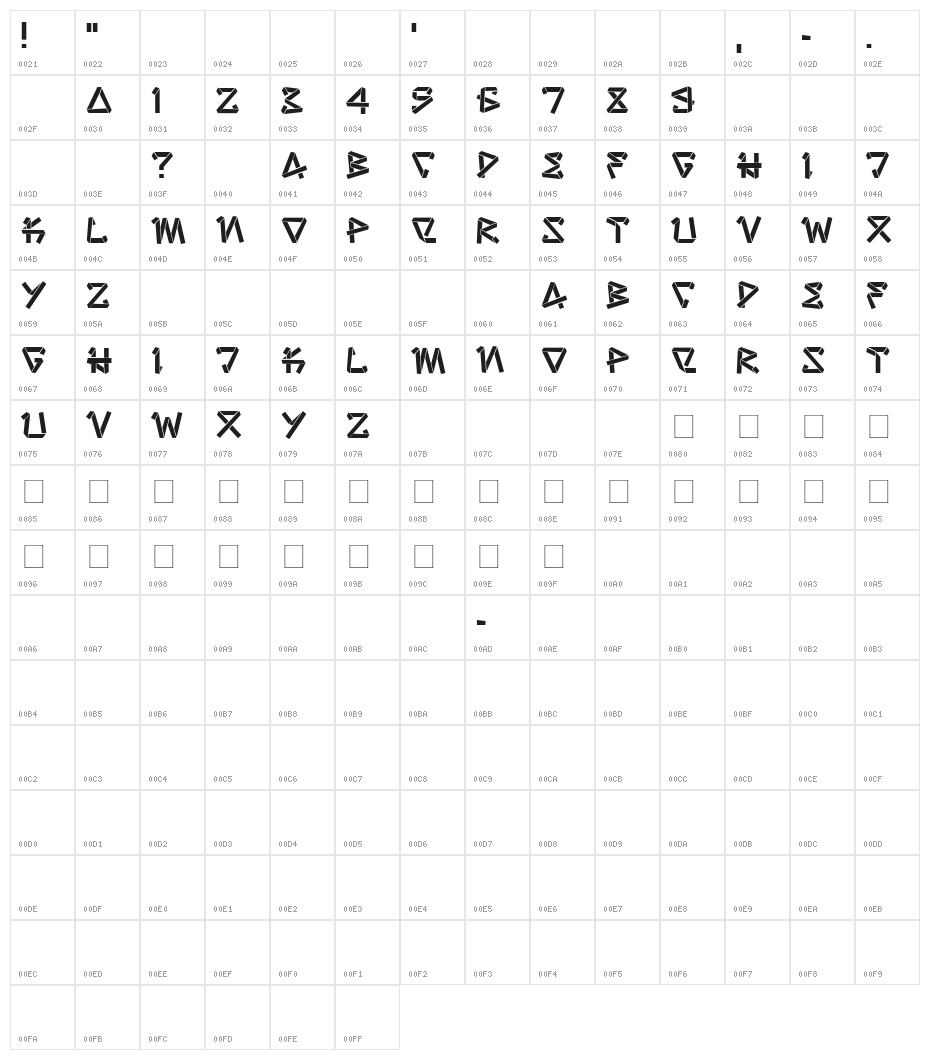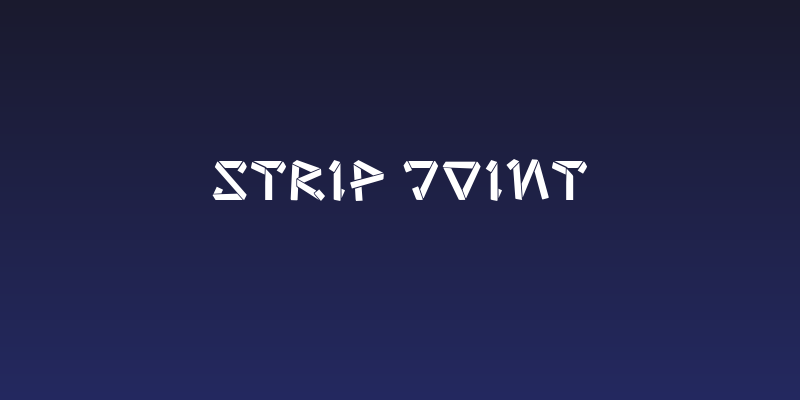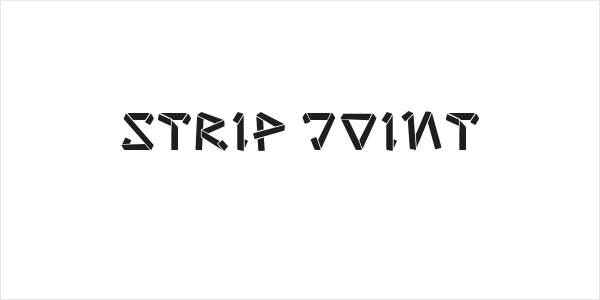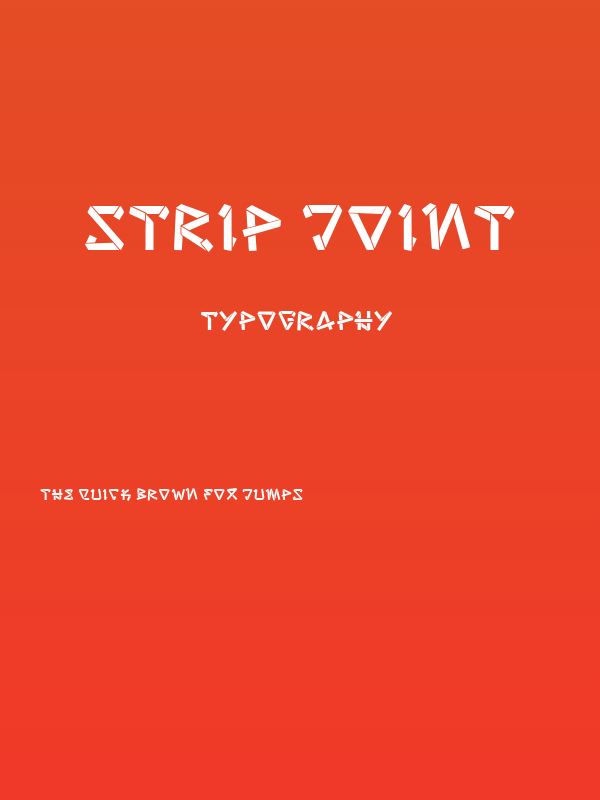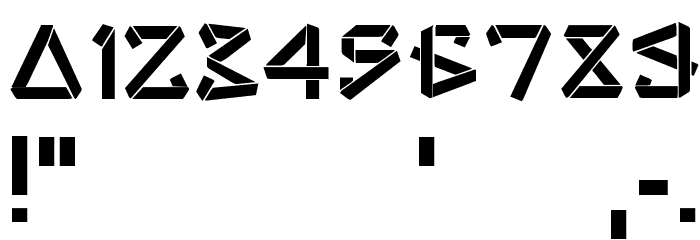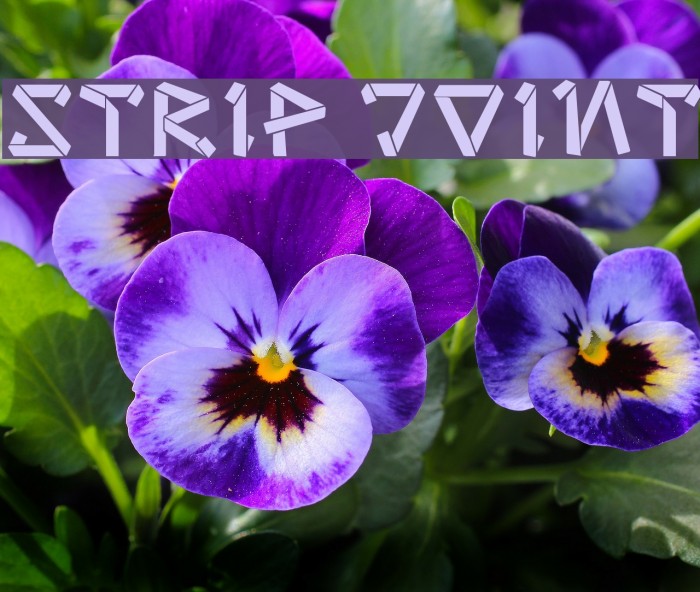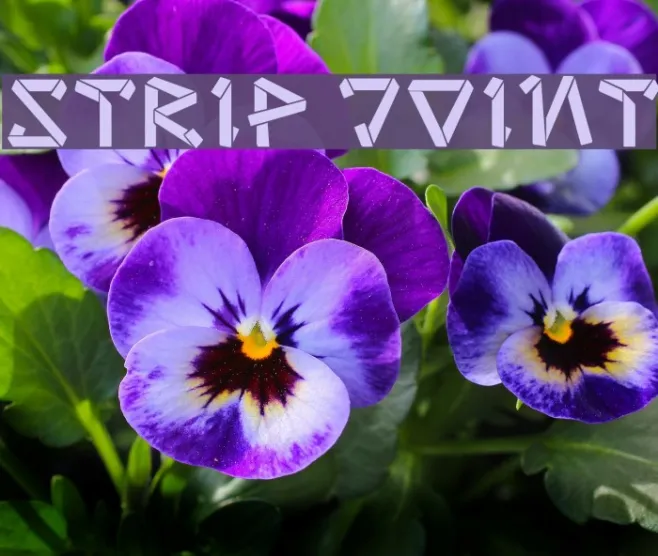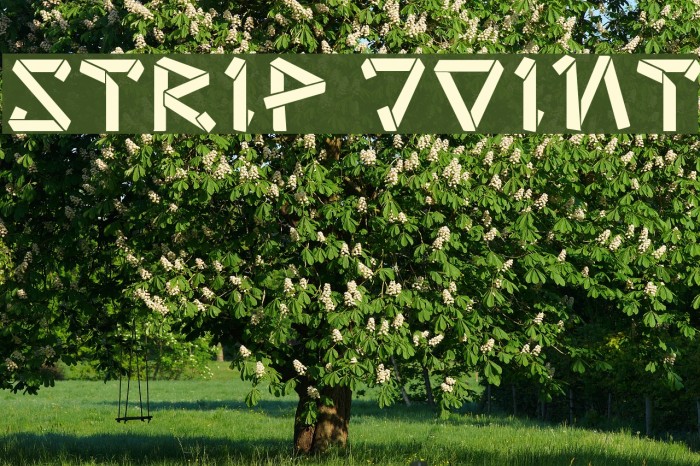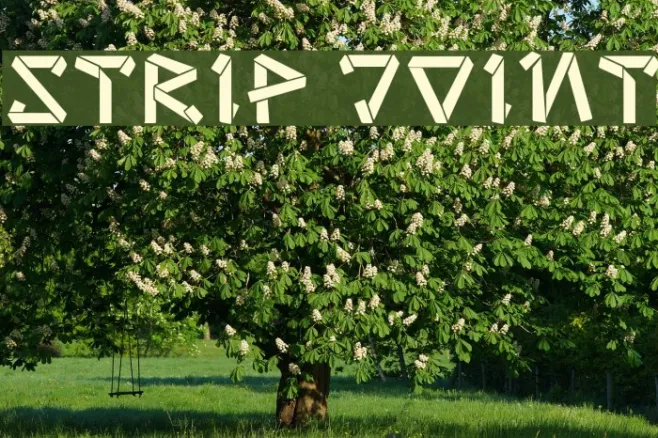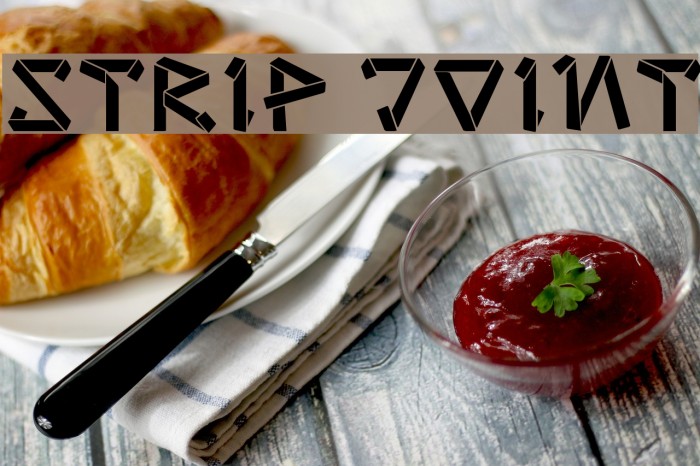
strip joint Font
strip joint Description
This font features a bold, geometric design with a distinct angular style. Each character is constructed with sharp, intersecting lines that create a sense of movement and energy. The uppercase and lowercase letters maintain a consistent aesthetic, while the numbers and special characters follow the same angular theme. The overall appearance is modern and edgy, making it ideal for attention-grabbing designs. The font's unique structure gives it a futuristic and dynamic feel, suitable for projects that require a standout visual impact.
| Proposed Projects | Ideal for posters, album covers, video game graphics, and branding that requires a futuristic and bold aesthetic. |